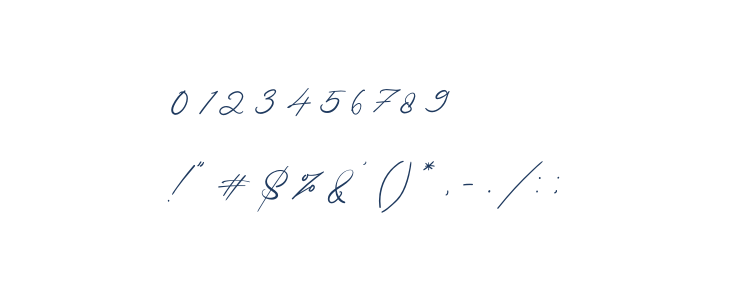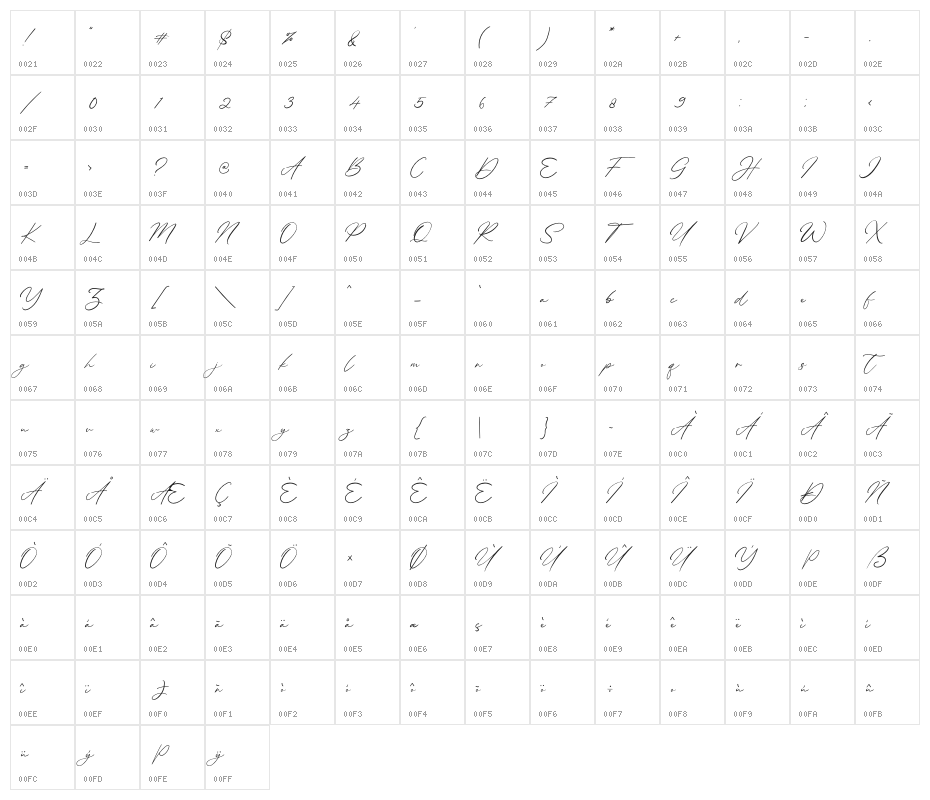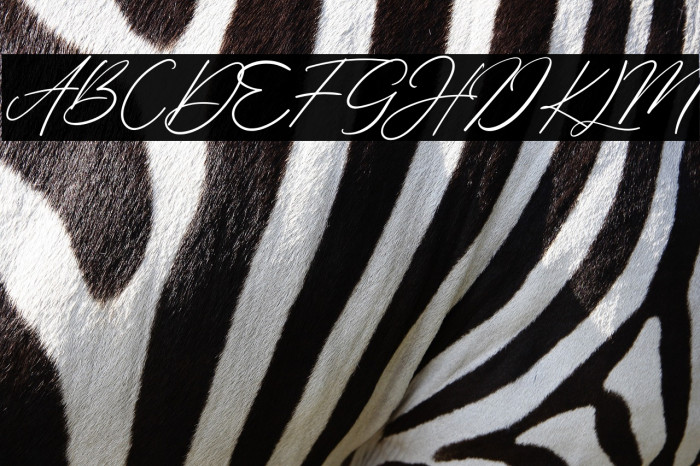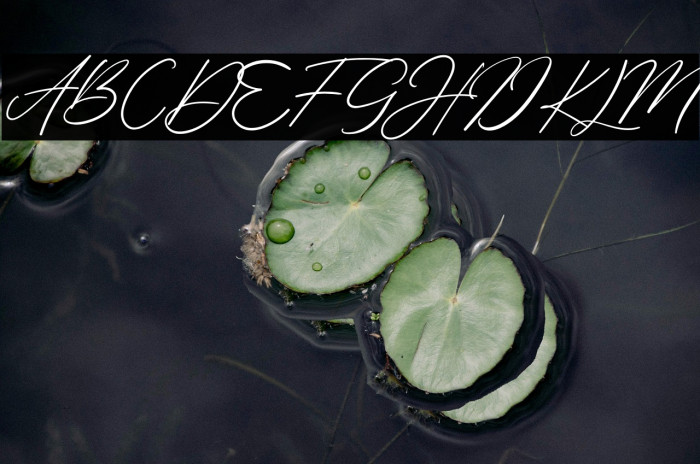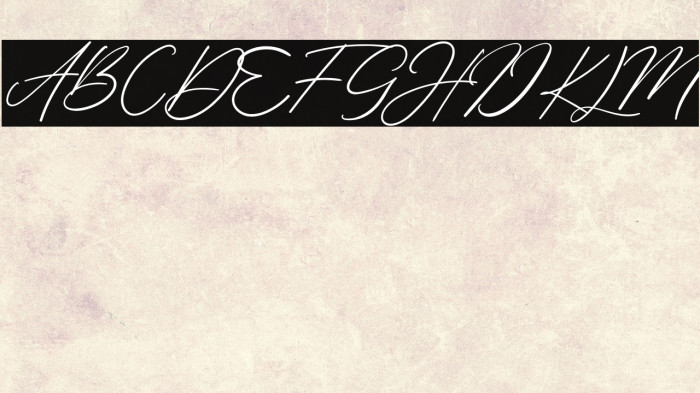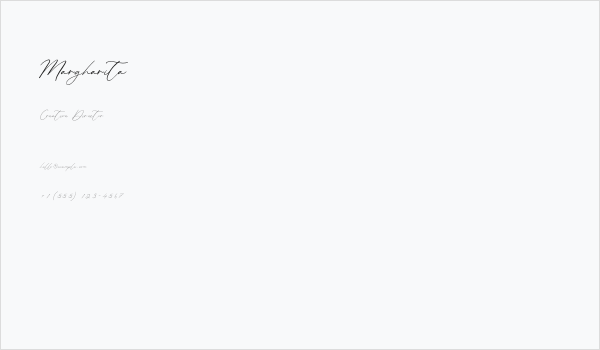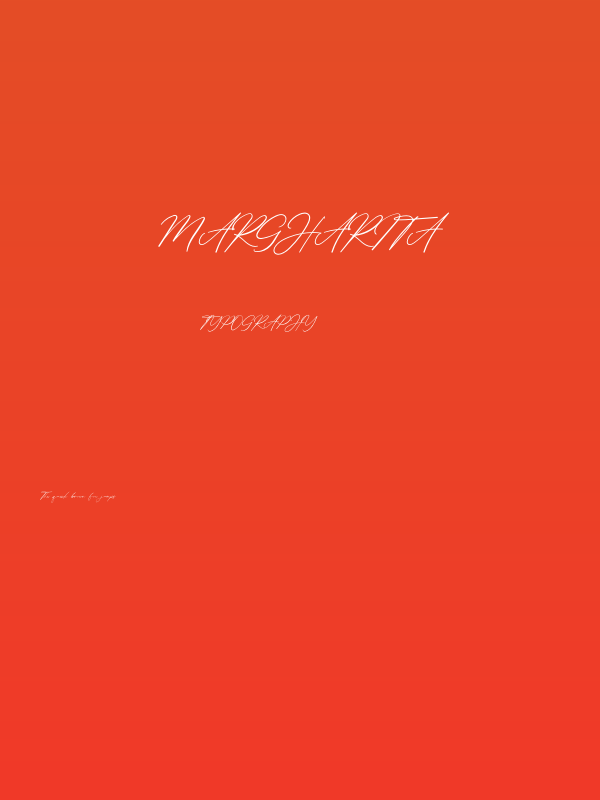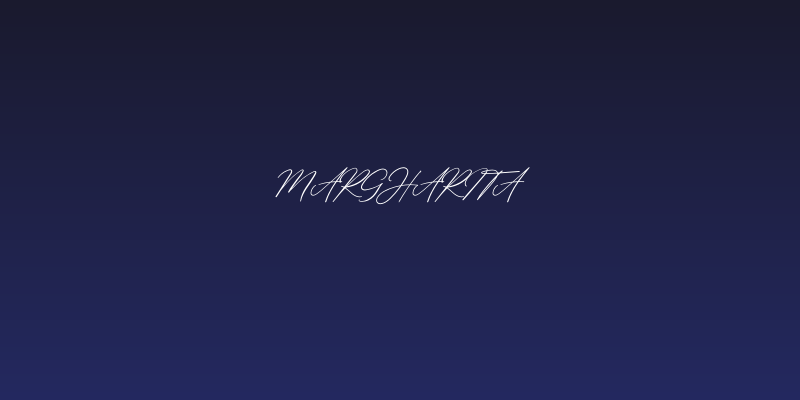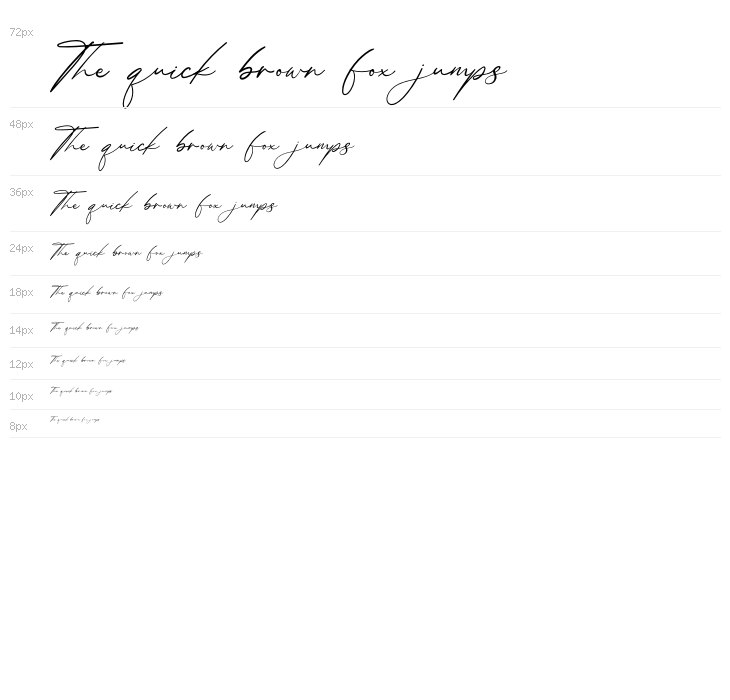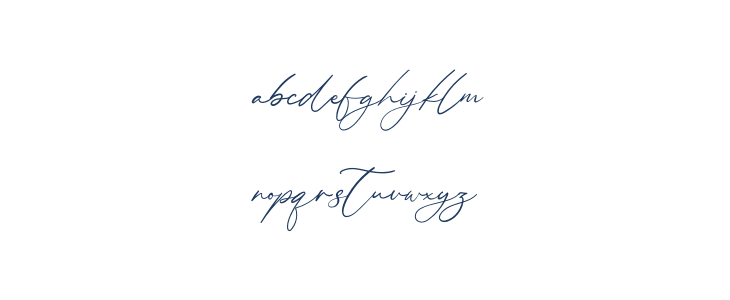
Margharita Font
Margharita Description
This elegant script font features a flowing, cursive style with a sophisticated and artistic flair. The characters are connected, creating a seamless and fluid appearance that mimics natural handwriting. The uppercase letters are grand and sweeping, while the lowercase letters maintain a delicate and refined look. The numerals and special characters are consistent with the overall style, adding a touch of elegance to any text. This font is perfect for projects that require a personal and stylish touch, such as invitations, greeting cards, or branding materials.
Overall StyleElegant, Artistic
Use CaseInvitations, Branding, Personal Stationery
Proposed ProjectsIdeal for wedding invitations, elegant branding, personal stationery, and artistic projects.